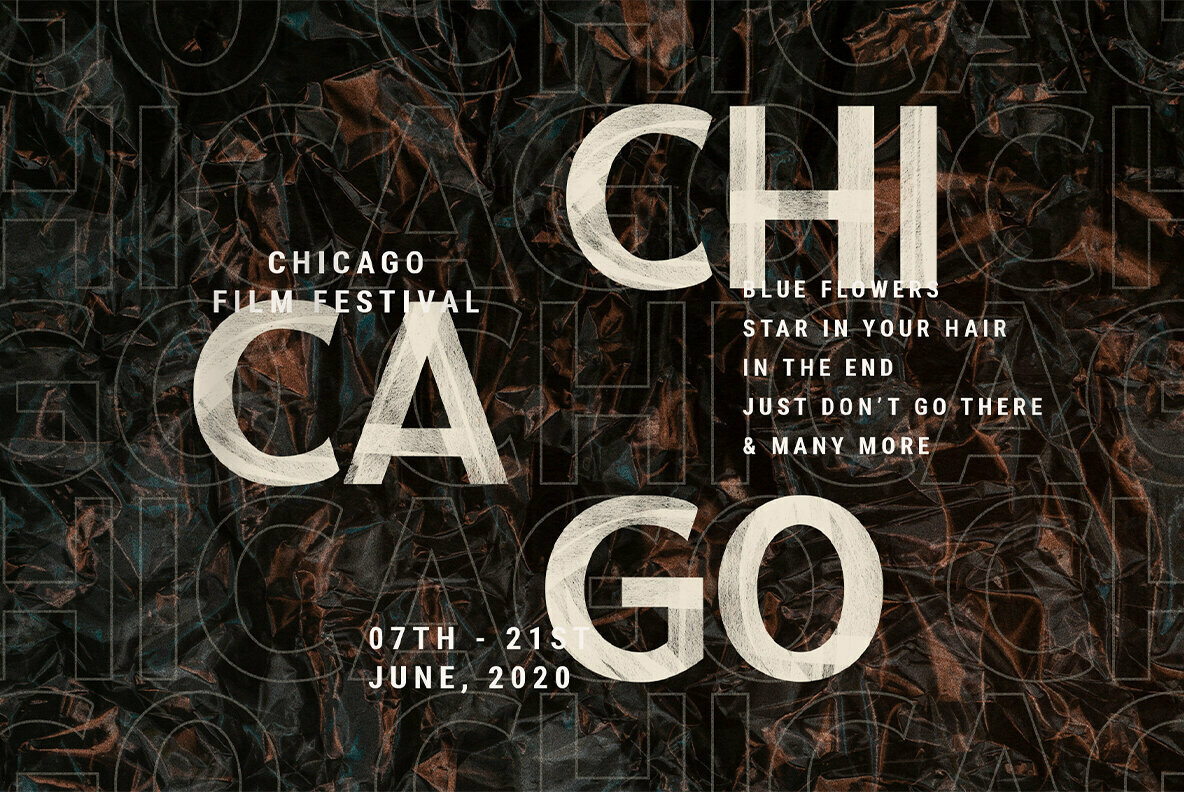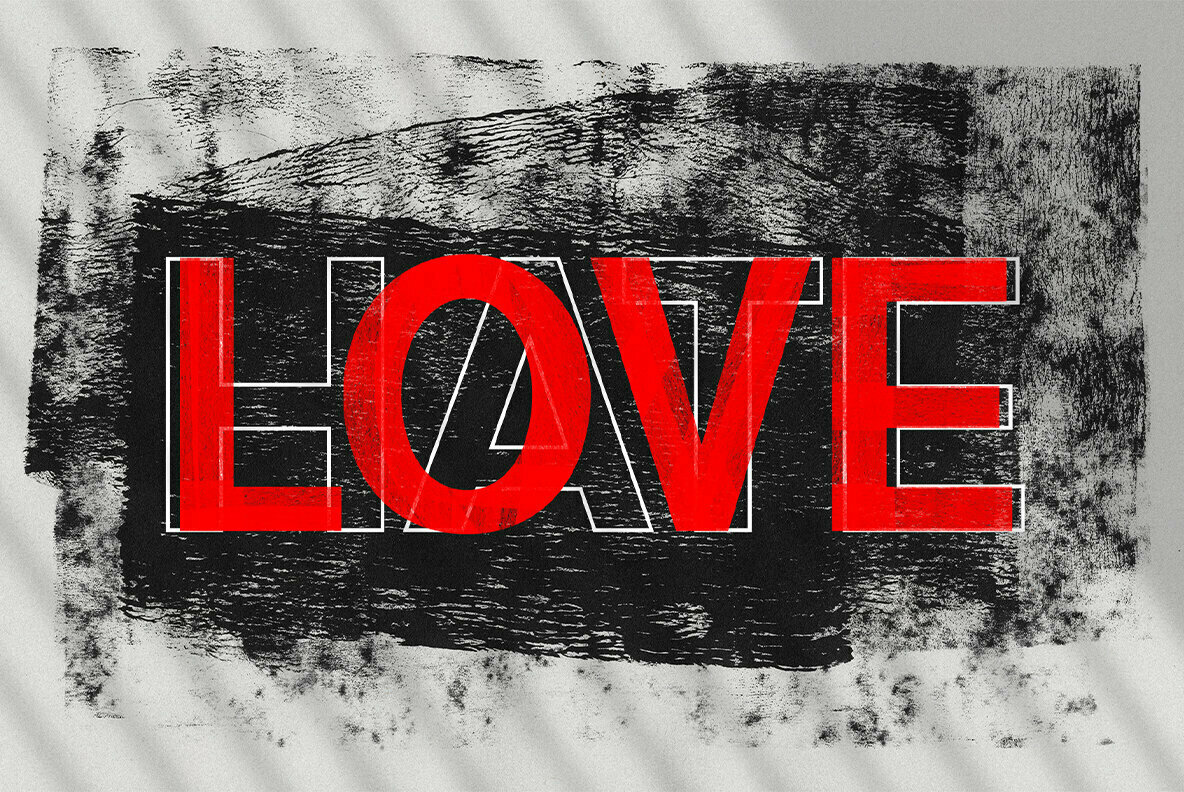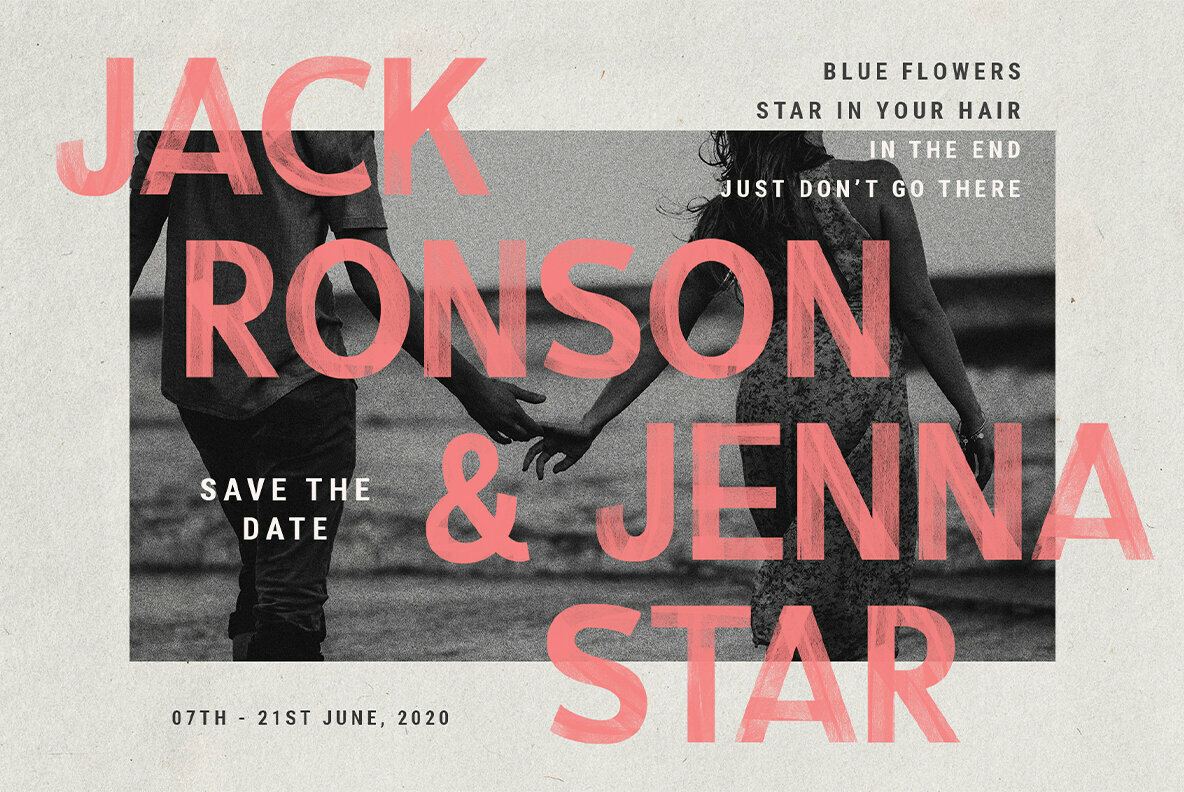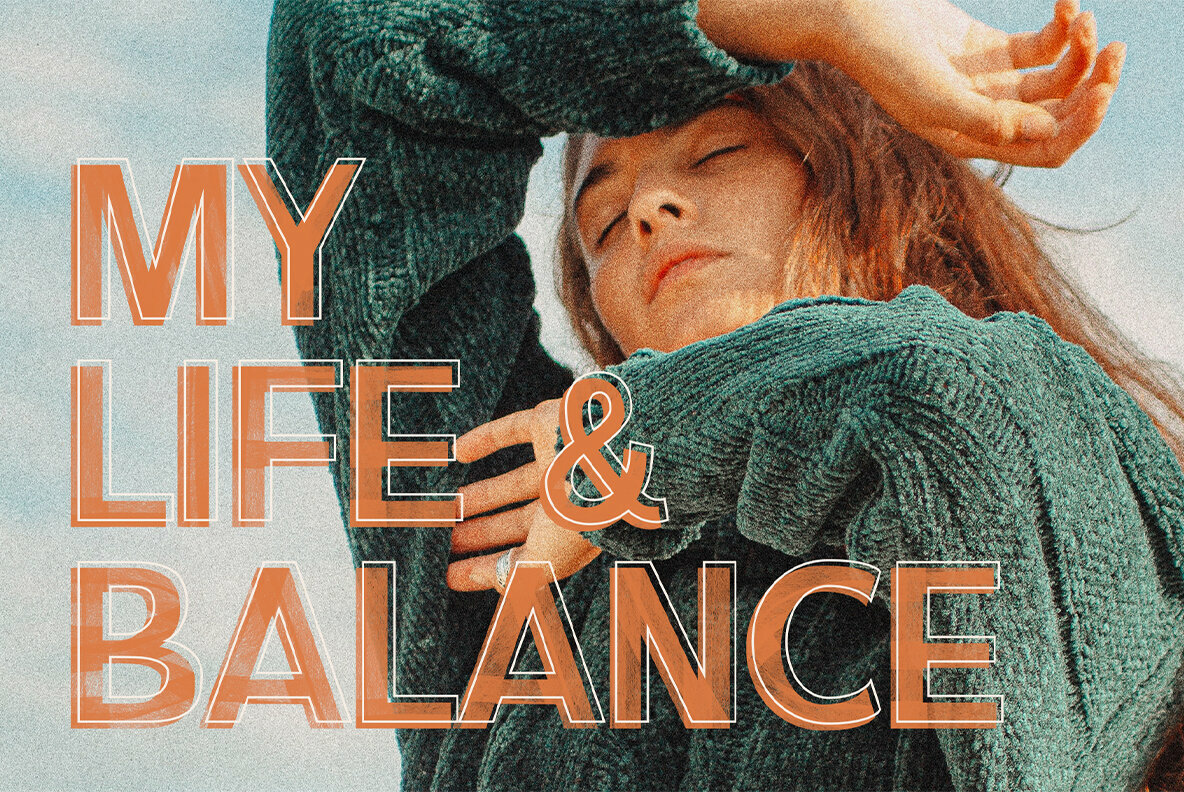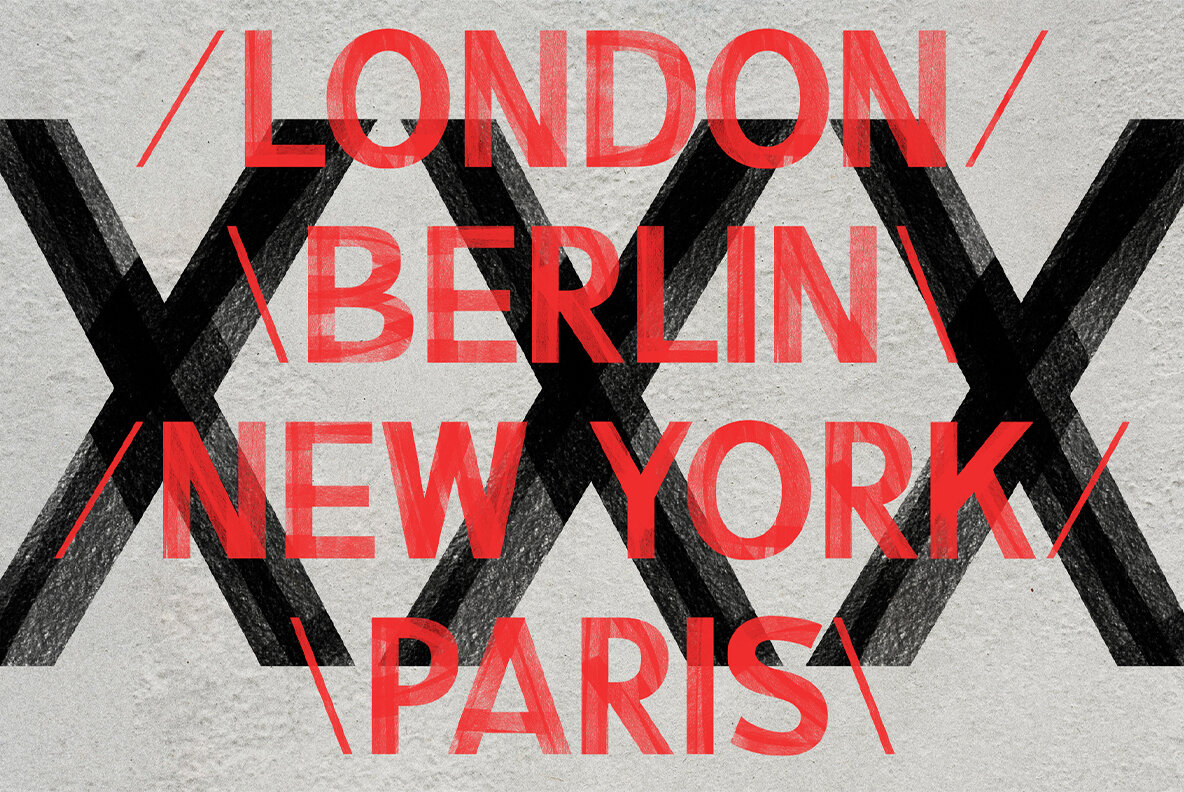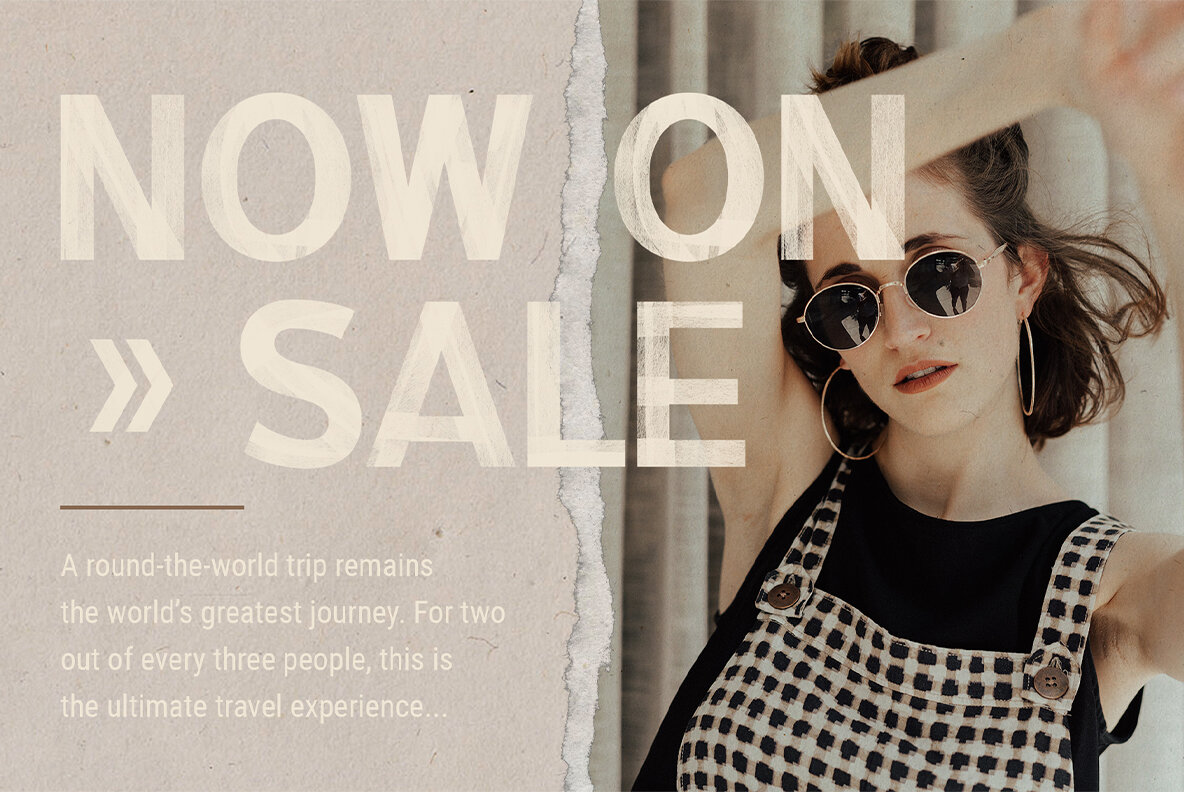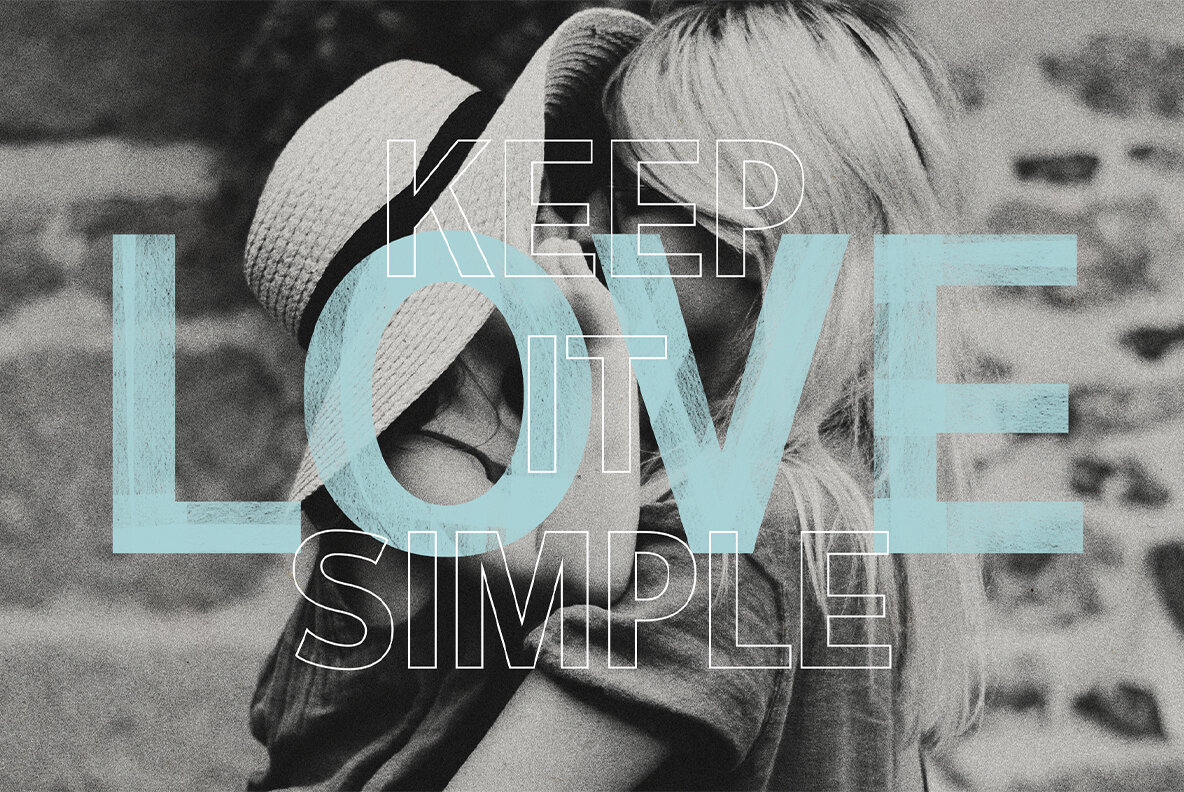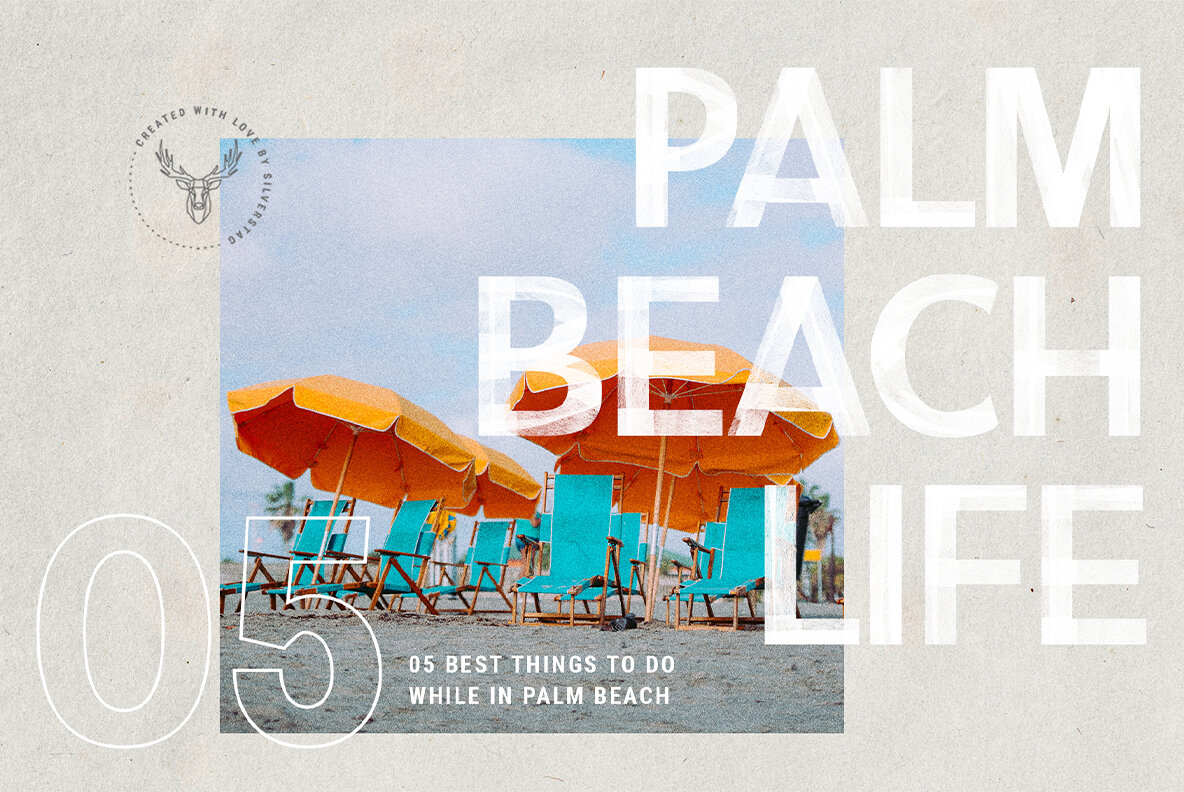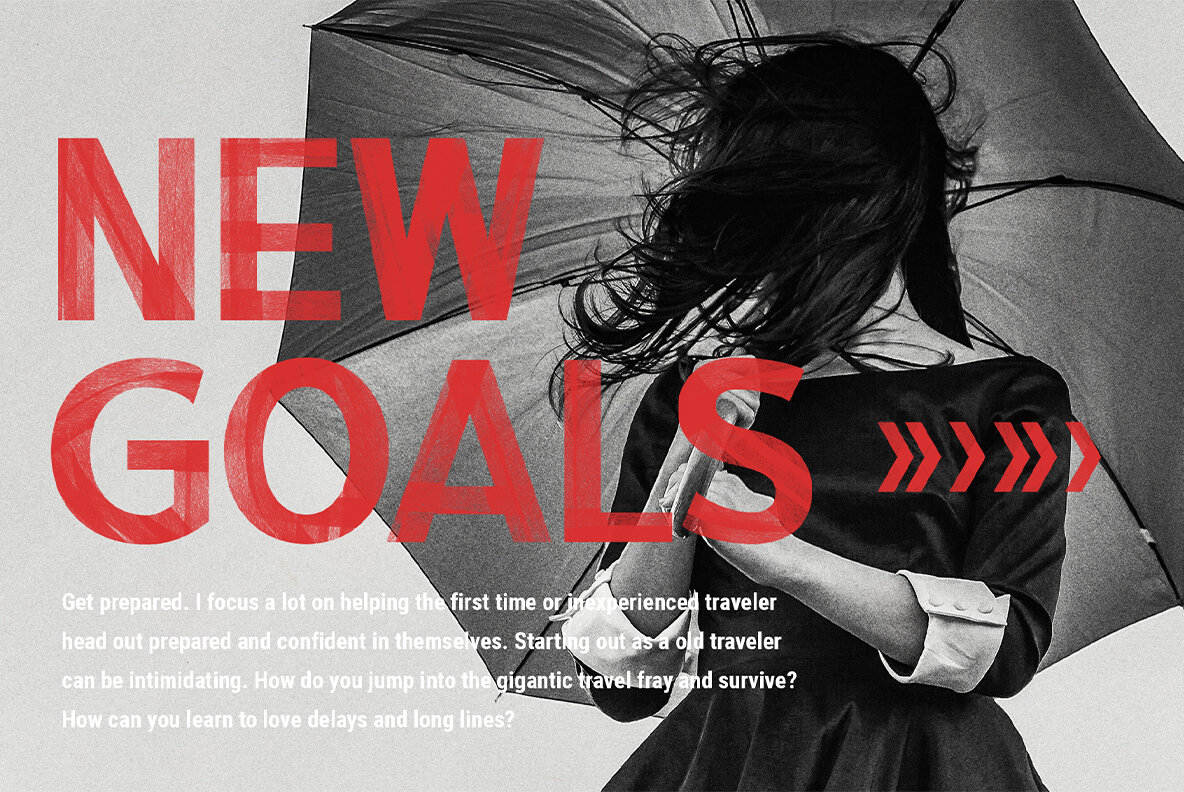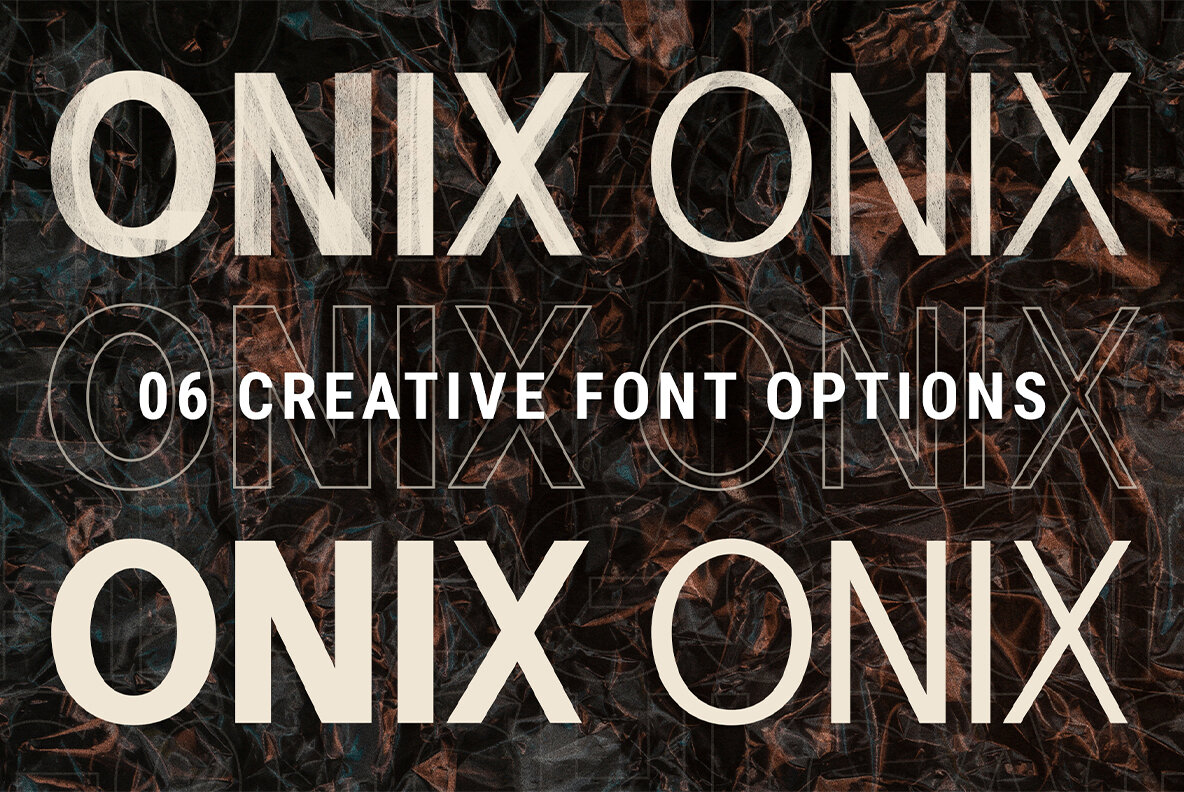
ONIX - Hand Painted SVG Font
You know how everyone says that if you want to grow you have to step out of your comfort zone? Well if you know me and if you know my work, you will notice that this font is different from what I have been doing so far. While it was challenging it was also interesting to do something I never did before. From the font itself to the preview images, it's all different from what I am used to and I am glad to say I am satisfied how it all turned out, which is the most important thing in the end I guess :)
So, this time I have prepared 6 font options in one pack for all of you who need a font that will be different and unique. You will get 2 SVG hand-painted fonts in high resolution, 2 outlined fonts and 2 standard fonts you can use if your software doesn't support the SVG version